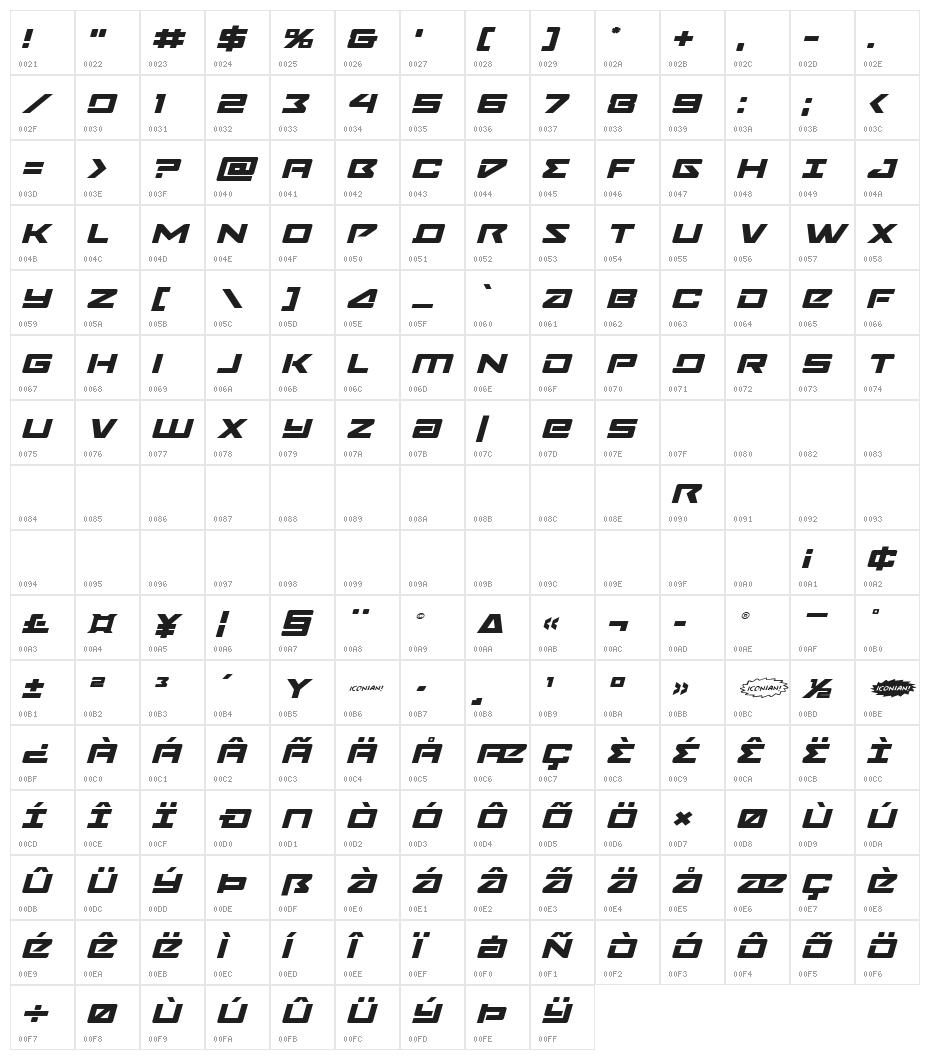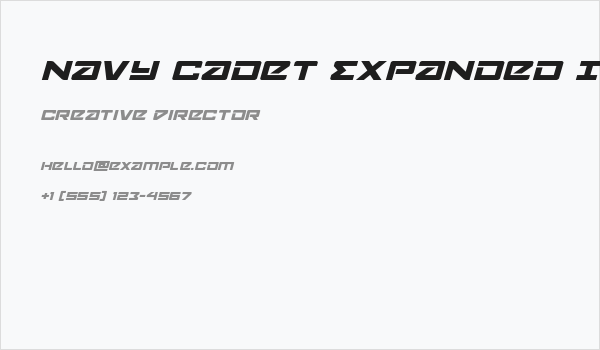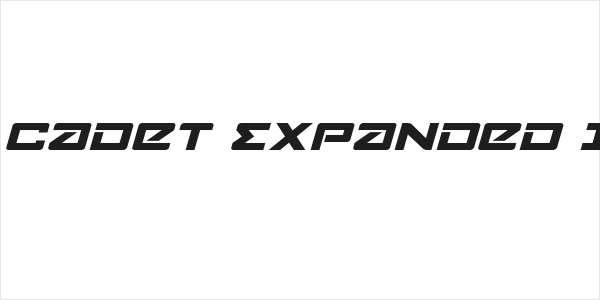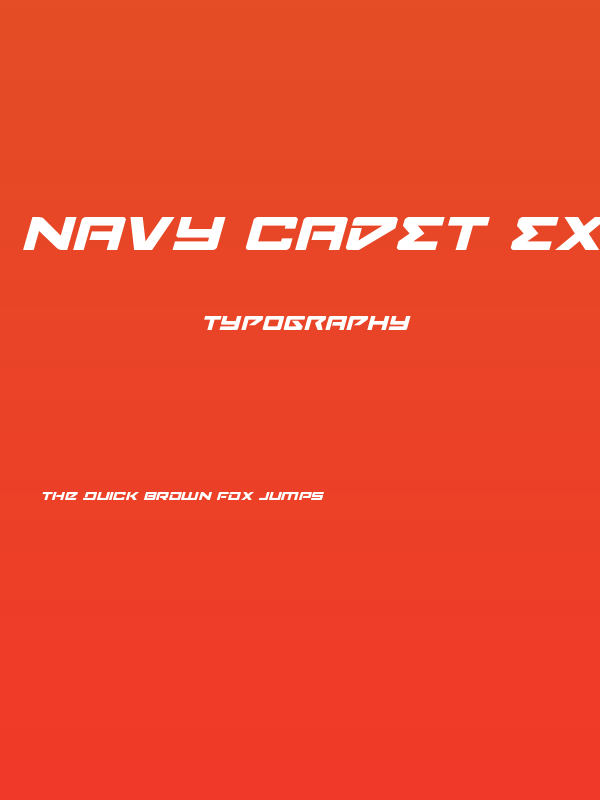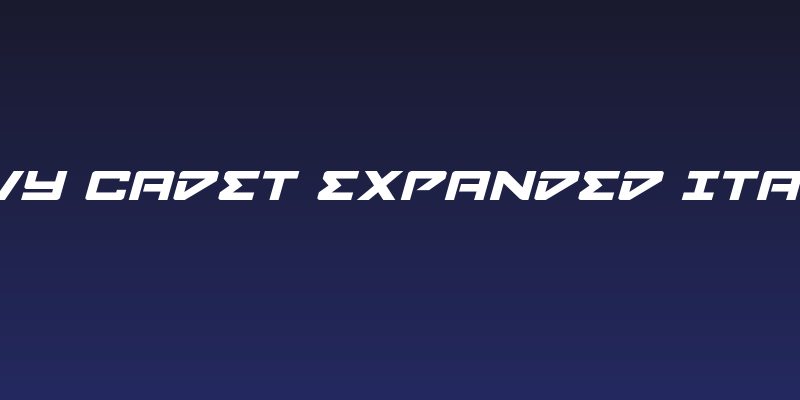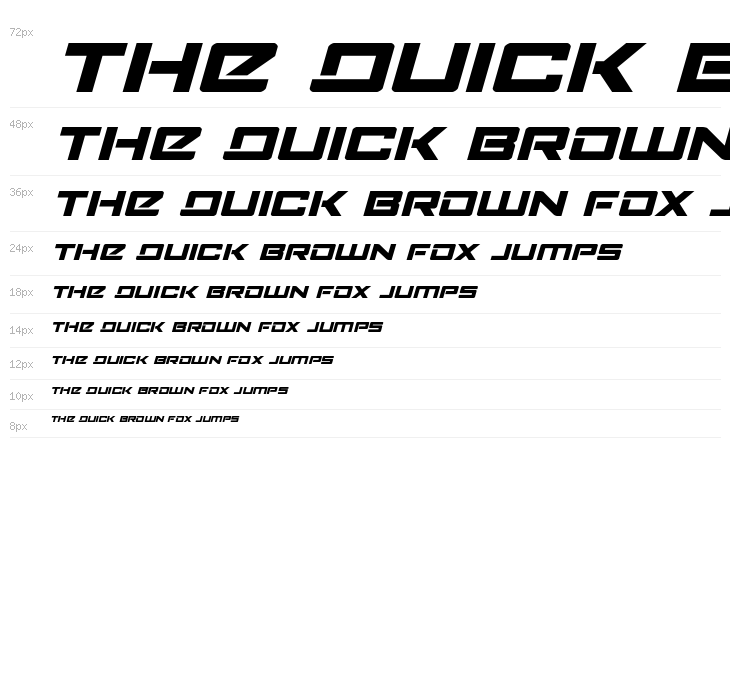
Navy Cadet Expanded Italic Font
Navy Cadet Expanded Italic Description
This font features a bold, italicized style with an expanded width, giving it a strong and dynamic appearance. The characters are designed with sharp angles and clean lines, creating a futuristic and modern look. The uppercase and lowercase letters maintain a consistent style, with a slight slant that enhances the italic effect. The numbers and special characters are equally bold and angular, ensuring uniformity across all elements. This font's expanded width allows for greater readability, making it suitable for various design applications. Its unique style is both eye-catching and versatile, making it a great choice for projects that require a modern and impactful typeface.
| Proposed Projects | Ideal for branding, sports team logos, futuristic designs, and technology-related projects. |